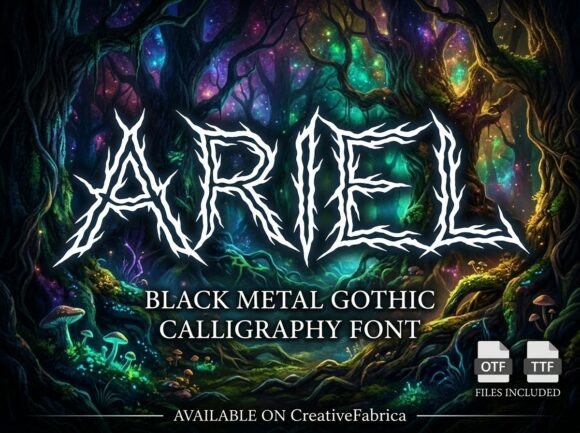
The Dark Allure of Ariel Font: A Designer’s Dream Come True
I still remember the design project that led me to discover Ariel Font. I was working on a branding campaign for an extreme metal band, and I was struggling to find a font that captured their dark, edgy vibe. That’s when I stumbled upon Ariel, and it was love at first sight. The aggressive, high-contrast letterforms and rhythmic, hand-drawn “thorned” extensions seemed to scream “metal” and “rebellion” in the best possible way.
So, what makes Ariel Font so special? Here are a few things I love about it:
• ✨ Unique and edgy design: Ariel’s skeletal, root-like structure and thorned extensions make it a standout in any design project.
• ✅ High-impact readability: Despite its bold and complex design, Ariel is surprisingly readable, even at smaller font sizes.
• 💥 Perfect for dark and gritty themes: Whether you’re designing for metal music, dark fantasy, or alternative streetwear, Ariel’s rebellious personality shines through.
Of course, no font is perfect, and Ariel has a few quirks to keep in mind:
• 🤔 Limited use in body text: Ariel’s bold design makes it better suited for headlines and titles rather than body text.
• ⚠️ Requires careful kerning: As with any font with complex letterforms, kerning can be a bit tricky with Ariel.
The Story Behind Ariel Font
Ariel Font was designed with one goal in mind: to capture the dark, rebellious spirit of extreme music and dark fantasy. Its creator, a type designer with a passion for metal music, drew inspiration from ancient forbidden scripts and modern underground aesthetics. The result is a font that’s both timeless and cutting-edge.
What makes Ariel Font unique? Ariel’s skeletal, root-like structure and rhythmic, hand-drawn “thorned” extensions make it a standout in any design project.
Is Ariel Font suitable for body text? While Ariel is readable, its bold design makes it better suited for headlines and titles rather than body text.